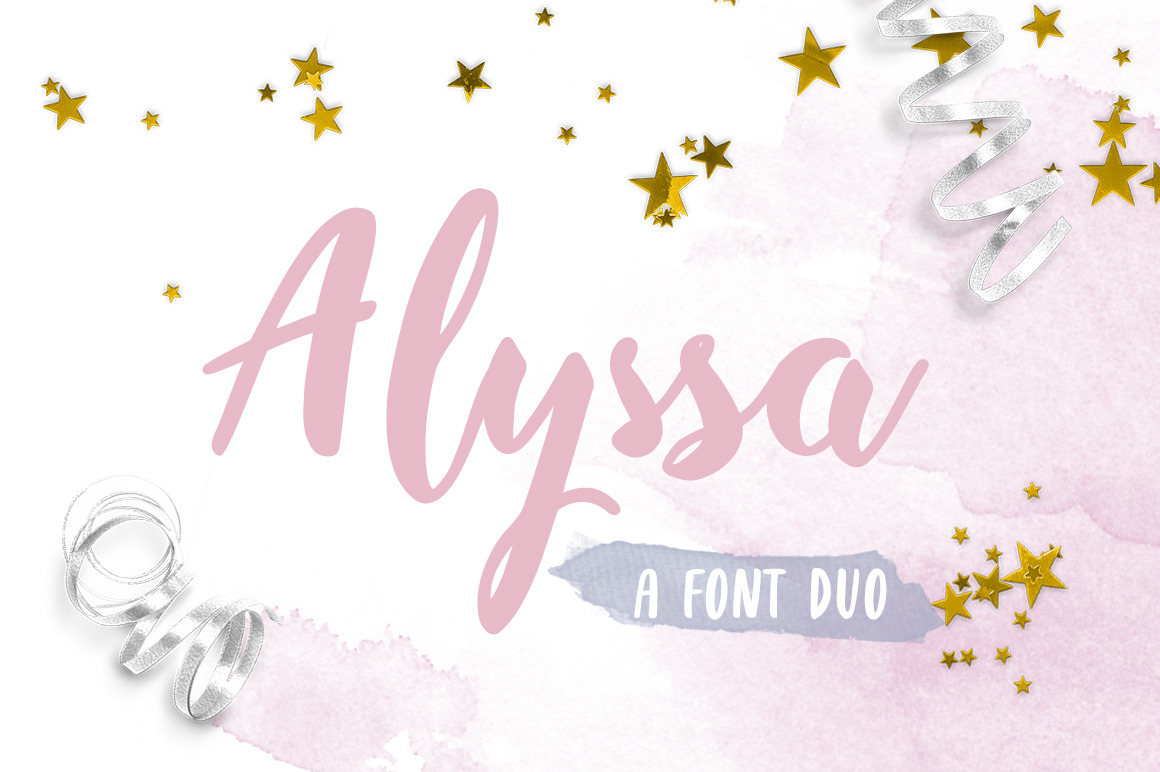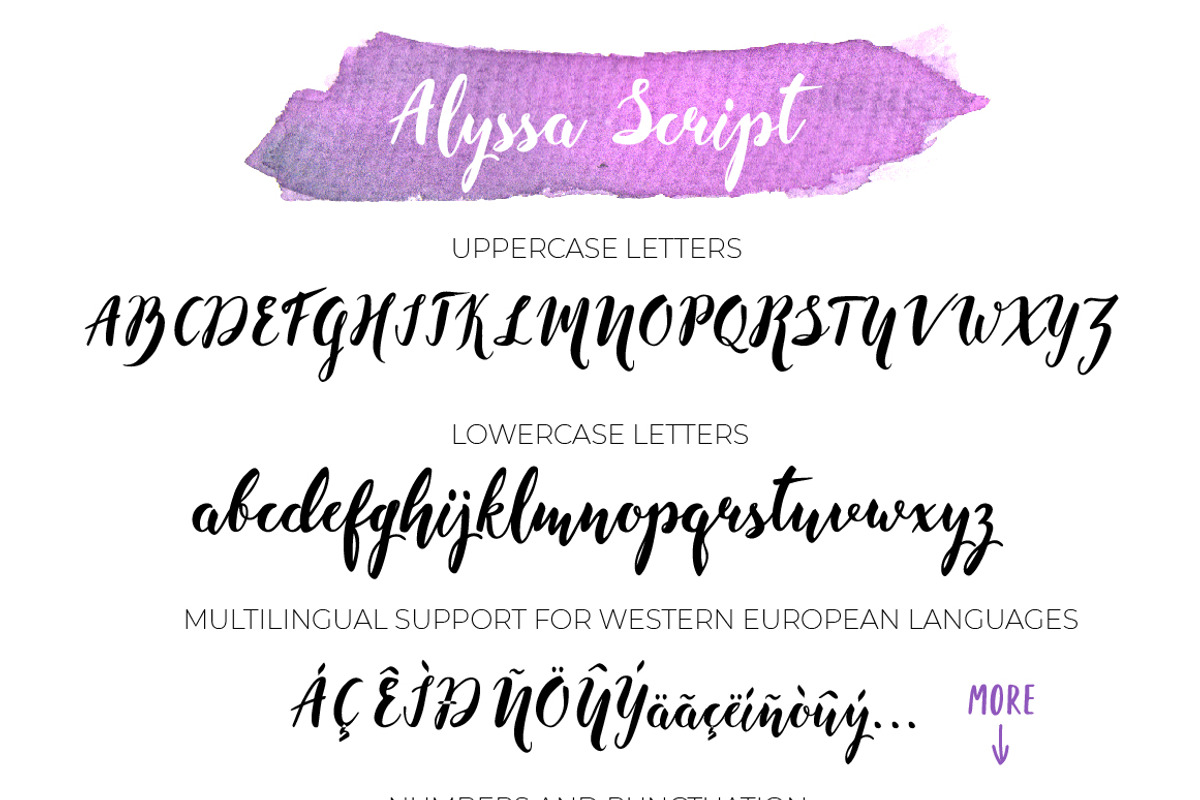
Alyssa Font Duo: Script & Sans Serif
Introducing Alyssa Font Duo: an elegant script with a playful mood perfect for high impact headlines, social media posts, magazine layouts, branding, greeting cards, stationery design, packaging, prints and more!
Alyssa includes 2 fonts: a script style and all caps. All styles were designed to pair perfectly together for stunning designs: mix sans serif all caps with charming lowercase script.
- A Script style has a variety of unique, coded features to create fascinating, hand lettered outcomes: 4 stylistic alternates, 7 initial characters, 2 end characters, 3 discretionary ligatures and 20 standard ligatures.
- An All Caps style designed to pair perfectly with Alyssa Script, includes 14 ligatures for handmade look.